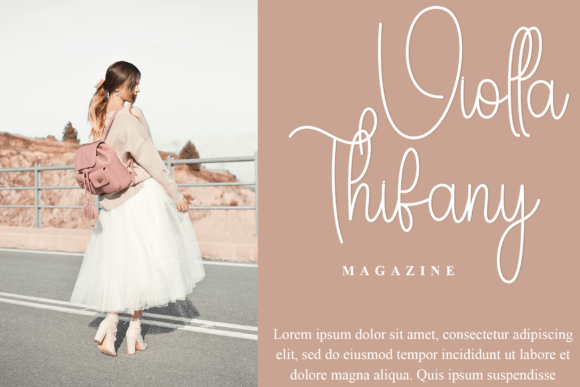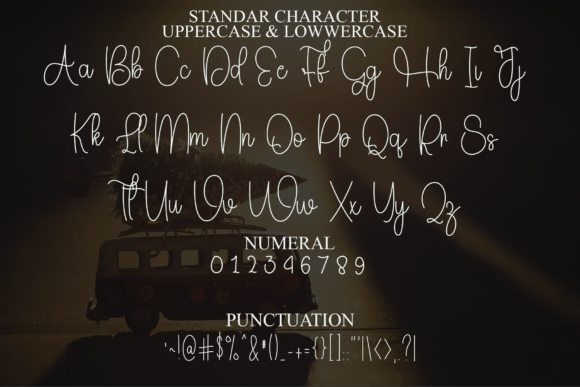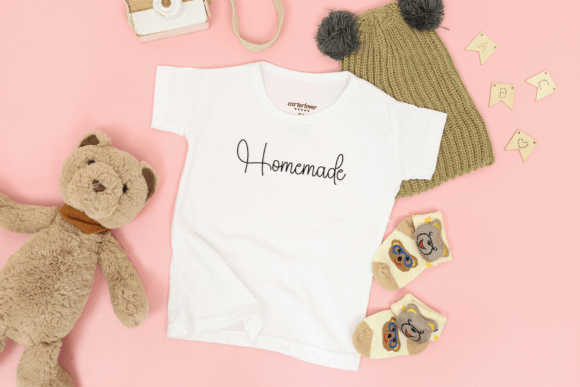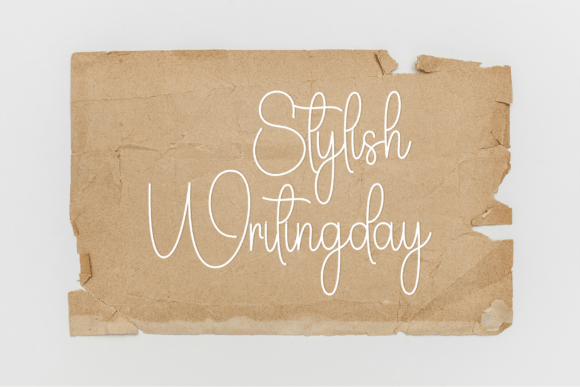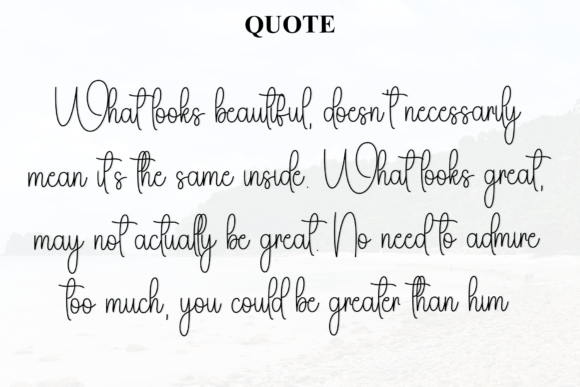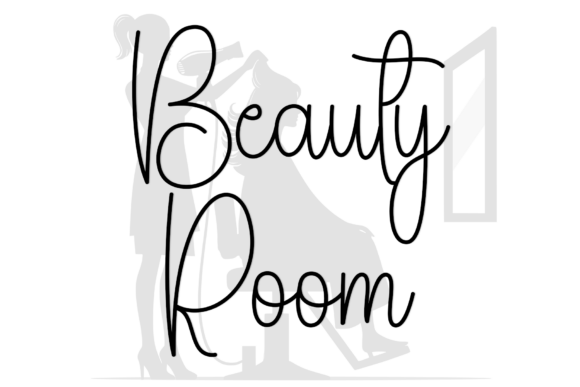
Introduction to Beauty Sometimes Font Font
Fonts play a crucial role in design, and the Beauty Sometimes Font font is a typeface that brings both character and versatility to any project. Whether you’re working on a branding project, a website, or a print design, the Beauty Sometimes Font font offers a unique style that can elevate your work.
Beauty Sometimes is a casual and creative font that exudes warmth and friendliness.
Its round, playful strokes create a relaxed and approachable feel, perfect for personal projects, invitations, and social media graphics The fontβs charming, hand-drawn aesthetic adds a fun and unique touch to any design.
Key Features of Beauty Sometimes Font Font
Why Choose Beauty Sometimes Font Font?
The Beauty Sometimes Font font is more than just a typeface β it’s a design tool that helps you communicate your message with style and clarity. Its unique character set and versatile design make it suitable for a wide range of applications, from elegant invitations to bold headlines.
With its carefully crafted letterforms and balanced proportions, the Beauty Sometimes Font font ensures readability and visual appeal across all mediums.
What makes Beauty Sometimes Font font special?
The Beauty Sometimes Font font stands out with its unique design, exceptional readability, and versatility across various design applications.